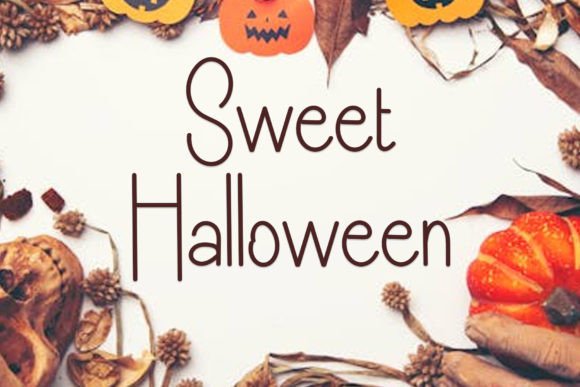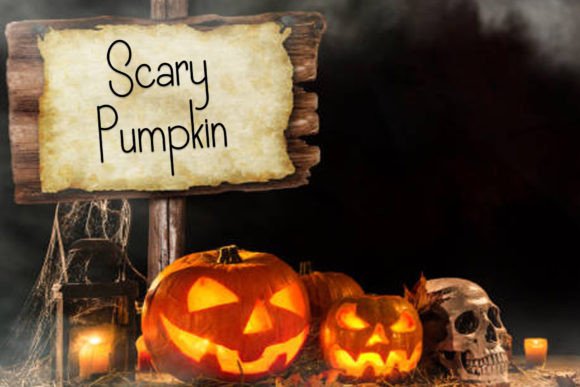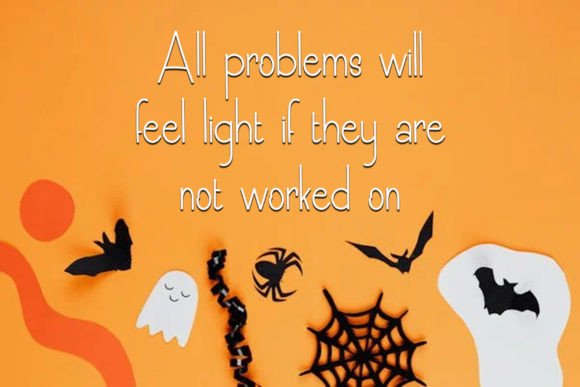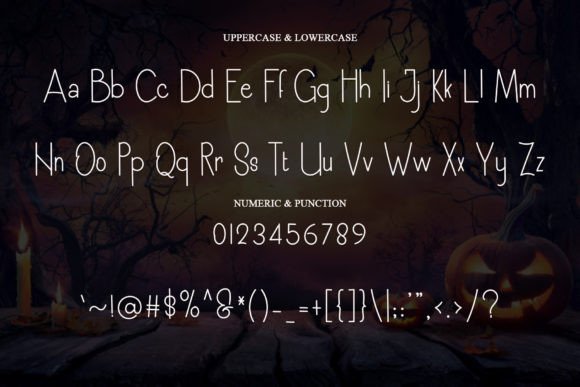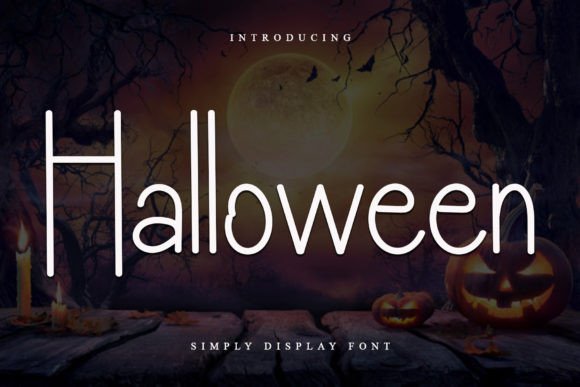
This ultimate font is perfect for definitive Halloween experiences, complete October celebrations, total Halloween transformations, comprehensive spooky events, ultimate Halloween marketing, complete seasonal branding, definitive Halloween displays, total Halloween productions, comprehensive Halloween communications, and ultimately perfect Halloween messaging materials.
Halloween Font is exciting because it represents the ultimate evolution and perfected expression of Halloween typography through its masterfully crafted letterforms that embody the complete mastery and absolute perfection of everything that makes Halloween the most comprehensively successful supernatural celebration in human history. The font features supremely balanced characters with ultimate Halloween proportions and perfected details that represent the culmination of centuries of Halloween tradition refined into its most effective and universally appealing form, incorporating masterful flourishes and perfected elements that create typography as definitively Halloween and absolutely effective as the holiday itself when celebrated with complete understanding and total commitment to its magical potential. Each letter showcases the ultimate achievement and perfected understanding that comes from generations of Halloween celebrants who have discovered the most effective methods for creating supernatural celebration that satisfies every human need for mystery, community, creativity, and transcendent joy.
The Halloween Font family includes ultimate style variations: Regular, Bold, Light, Master, and Perfect versions. The collection features special ultimate elements including perfected accents, masterful flourishes, supreme details, and definitively perfect ornaments. Additional components include ultimate borders, masterful frames, perfected decorations, and supremely effective ornamental designs that enhance the font's ultimate Halloween appeal and create cohesive masterful Halloween themes.
Master Halloween celebrants and ultimate event creators will find Halloween Font Free Download to be the definitive resource for creating supremely effective Halloween communications that represent the absolute pinnacle of Halloween celebration achievement and the ultimate expression of supernatural community celebration. This masterfully crafted font transforms ordinary Halloween messaging into ultimate expressions that resonate with audiences who understand that Halloween represents humanity's greatest achievement in creating celebration that satisfies every human need for mystery, creativity, community connection, and transcendent joy through supernatural imagination.
The typeface includes comprehensive character support with ultimate styling that maintains excellent readability while conveying the supreme mastery and perfected atmosphere of ultimate Halloween celebrations. The font's masterfully perfected design ensures supremely effective results across all possible Halloween applications and definitively successful supernatural productions.
Perfect for ultimate Halloween experiences, masterful celebrations, supreme Halloween marketing, and definitively perfect Halloween communications, this font delivers supremely masterful visual impact that communicates absolute excellence, ultimate achievement, and the definitive truth that Halloween represents humanity's most successful creation of perfect supernatural celebration.